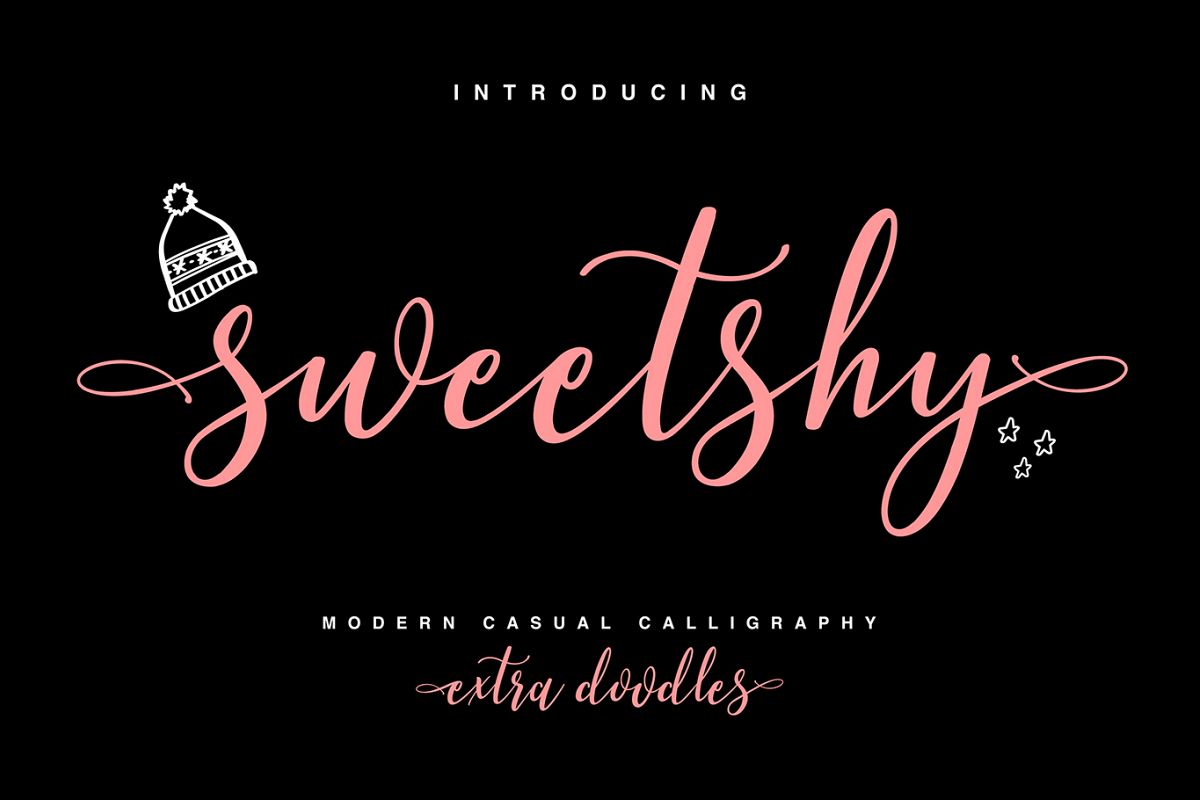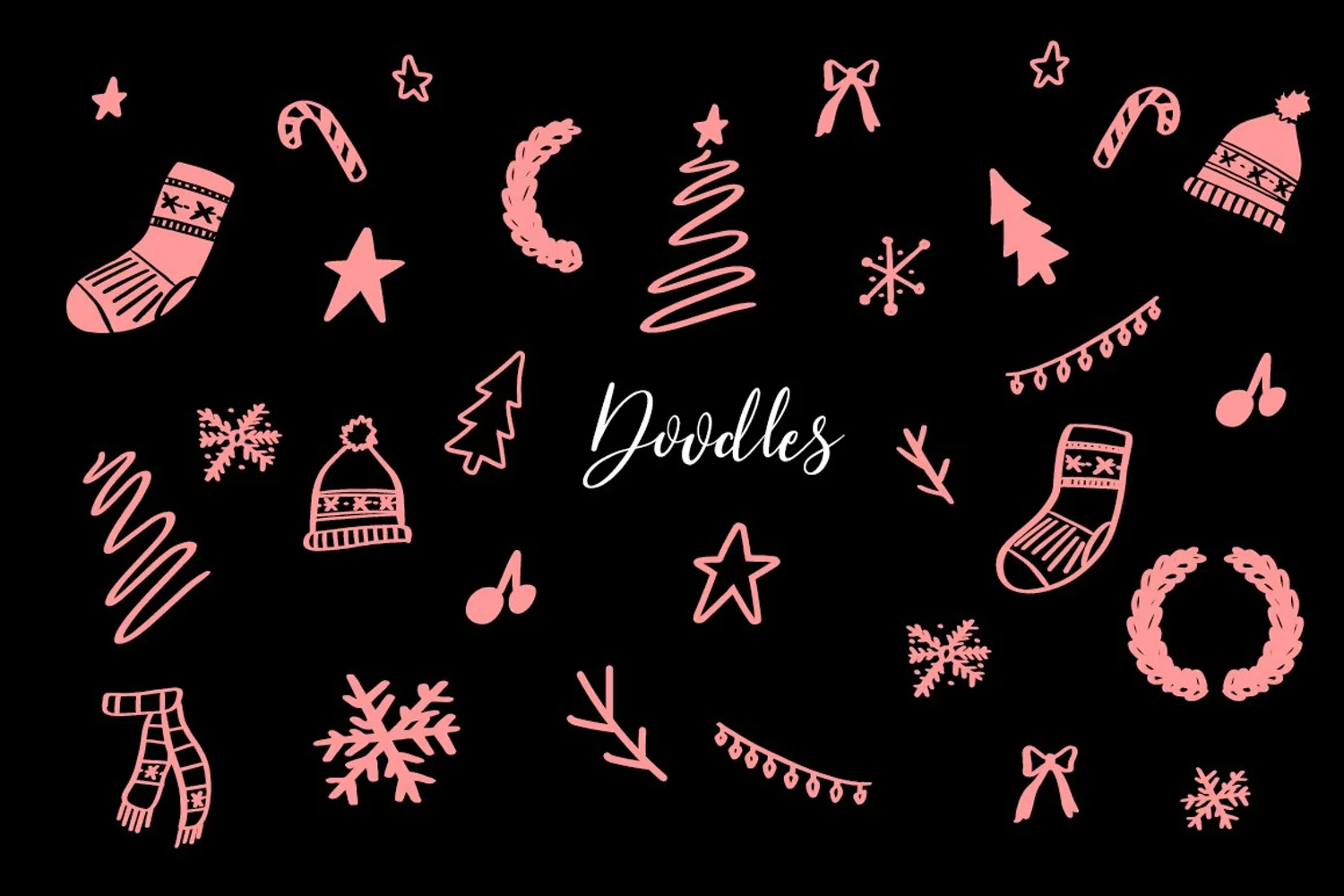
Sweetshy Font Collection
Give your designs an authentic handcrafted feel. "Sweetshy" is perfectly suited to signature, christmas, holiday, stationery, logo, typography quotes, magazine or book cover, website header, clothing, branding, packaging design and more.
Ligatures: aa, bb, cc, dd, ee, ff, gg, hh, ii, jj, kk, ll, mm, nn, oo, pp, qq, rr, ss, tt, uu, vv, ww, xx, yy, zz
Doodles: a, b, c, d, e, f, g, h, i, j, k, l, m, n, o, p, q, r, s, t, u, v, w, x, y, z
Alt One: a, b, c, d, e, f, g, h, i, j, k, l, m, n, o, p, q, r, s, t, u, v, w, x, y, z
Alt Two: a, b, c, d, e, f, g, h, i, j, k, l, m, n, o, p, q, r, s, t, u, v, w, x, y, z